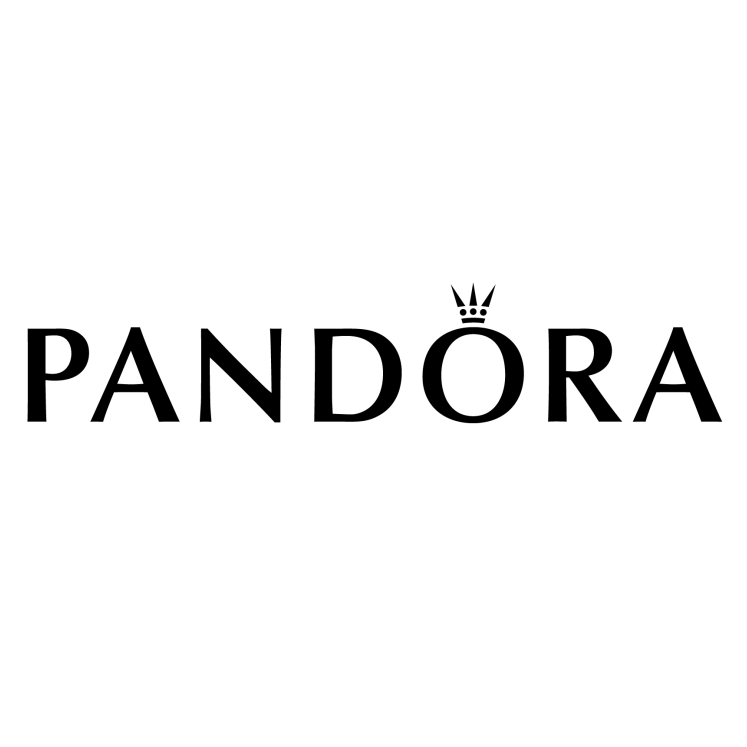
Pandora
Pandora A/S is an international Danish jewellery manufacturer and retailer founded in 1982 by Per Enevoldsen. The company started as a family-run jewellery shop in Copenhagen. Pandora is known for its customizable charm bracelets, designer rings, necklaces and watches.
The logo "
Pandora
" uses this font and it was verified ✔️by our designers.
Optima
Optima is a humanist sans-serif typeface designed by Hermann Zapf and released by the D. Stempel AG foundry, Frankfurt, Germany and released in 1958. Though classified as a sans-serif, Optima has a subtle swelling at the terminals suggesting a glyphic serif.